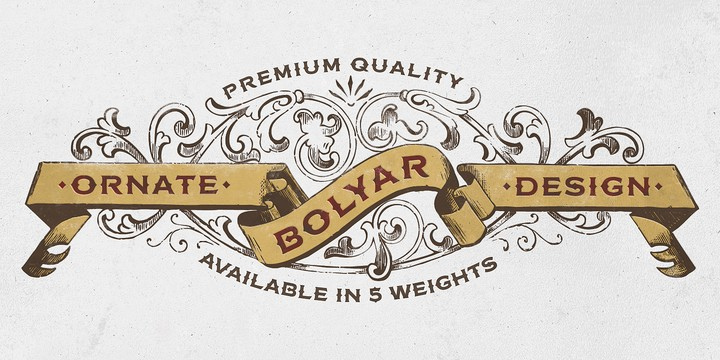
FM Bolyar Ornate Pro Font
FM Bolyar Ornate Pro Font excels in ornate wedding invitations, vintage-inspired branding, antique jewelry packaging, classical book covers, historical documentaries, baroque-style certificates, luxury perfume labels, traditional restaurant signage, heritage brand identities, and elaborate decorative headers requiring aristocratic elegance.
What makes FM Bolyar Ornate Pro Font exciting is its magnificent fusion of classical ornamentation and contemporary usability that creates breathtakingly beautiful typography with historical gravitas. This extraordinary typeface features intricate decorative elements, flourishes, and embellishments that evoke the grandeur of European palaces and illuminated manuscripts. The font's elaborate details and sophisticated swashes make it perfect for projects demanding regal elegance, ceremonial importance, and artistic distinction that commands reverence and admiration.
FM Bolyar Ornate Pro Font belongs to the decorative ornamental font family, specifically designed for ceremonial and luxury applications where maximum visual impact is essential. This font family typically includes regular, bold, and extra-ornate variants with extensive swash alternatives, ligatures, and decorative elements providing designers with limitless creative possibilities for elaborate compositions.
Perfect for luxury wedding planners, heritage brand consultants, ceremonial designers, and artists specializing in ornate aesthetics, this typeface dominates in titles, ceremonial text, and prestigious applications. The font's dramatic presence enhances exclusive invitations, commemorative materials, artistic installations, and premium branding requiring historical authenticity.
The meticulously detailed letterforms maintain surprising readability despite their ornate complexity, ensuring functional beauty at various sizes. From intimate ceremonial programs to grand architectural signage, FM Bolyar Ornate Pro Font delivers spectacular results while preserving its majestic decorative character.
Modern designers value how this font bridges historical authenticity with contemporary functionality, creating designs that feel both timeless and relevant. Its extensive ornamental features and professional craftsmanship ensure seamless integration into high-end projects demanding artistic excellence.